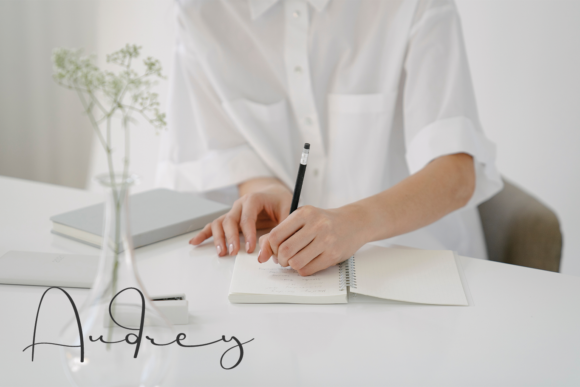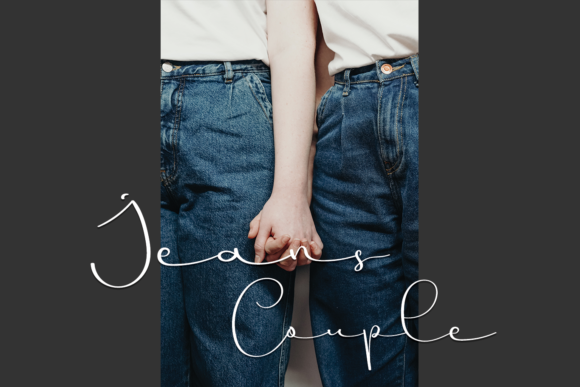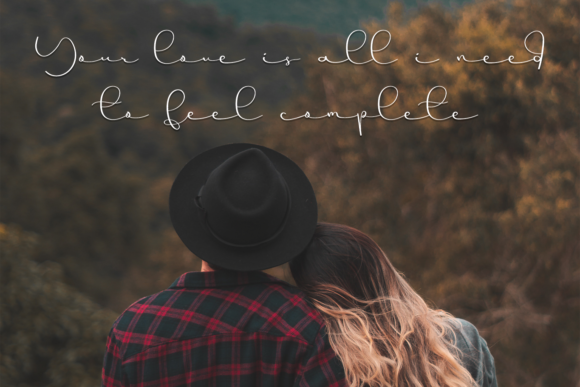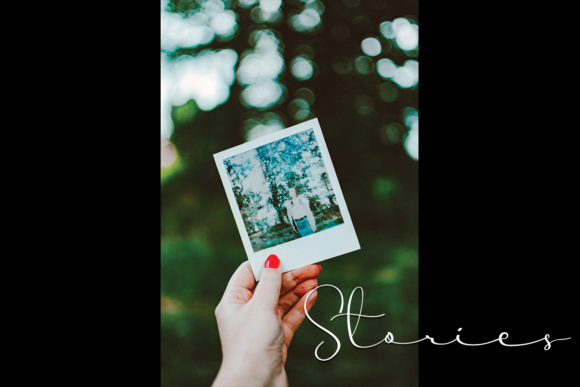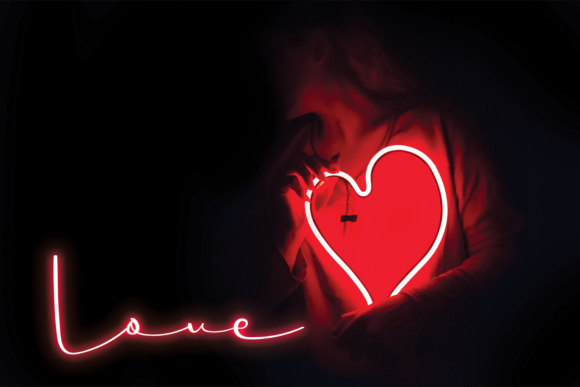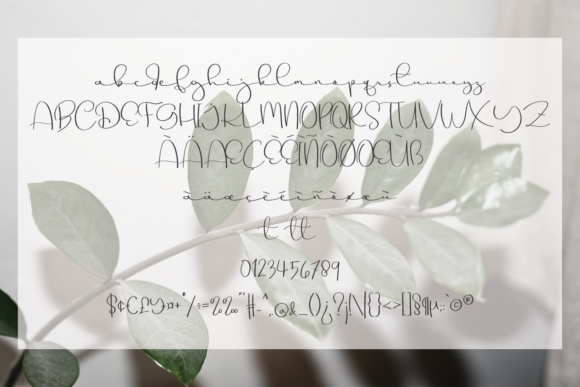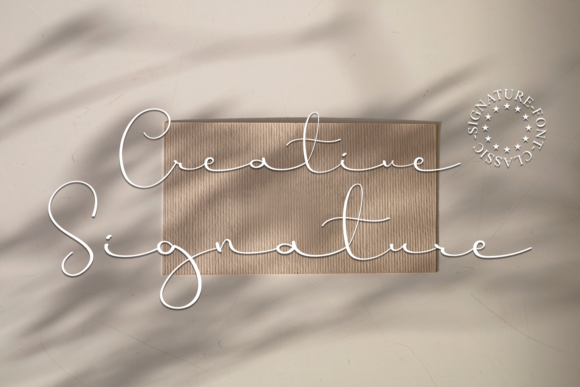
Introducing Creative Signature: The Elegant Script Font for Your Designs
Are you a designer or crafter looking for a font that exudes elegance and class? Look no further than Creative Signature, a lovely and delicate script font that’s perfect for adding a touch of sophistication to your designs. In this article, we’ll take a closer look at Creative Signature, its features, and how you can use it to elevate your designs.
What is Creative Signature?
Creative Signature is a beautiful script font that’s been carefully crafted to provide a refreshing and elegant look to your designs. Its delicate strokes and flowing curves make it perfect for a variety of design projects, from wedding invitations and greeting cards to branding and packaging.
Key Features of Creative Signature
- Elegant and Delicate: Creative Signature features delicate strokes and flowing curves that give it an elegant and refined look.
- Script Font: This font is a script font, perfect for adding a touch of sophistication and class to your designs.
- Refreshing Look: Creative Signature has a refreshing look that’s perfect for designers and crafters who want to add a unique touch to their designs.
How to Use Creative Signature in Your Designs
Creative Signature is a versatile font that can be used in a variety of design projects. Here are a few ideas to get you started:
- Wedding Invitations: Use Creative Signature to create beautiful and elegant wedding invitations that set the tone for the big day.
- Greeting Cards: Add a touch of elegance to your greeting cards with Creative Signature, perfect for special occasions like birthdays and anniversaries.
- Branding and Packaging: Use Creative Signature to create a unique and sophisticated brand identity for your business.
- Stationery: Add a touch of elegance to your stationery with Creative Signature, perfect for letters, notes, and other written correspondence.
Benefits of Using Creative Signature
There are many benefits to using Creative Signature in your designs. Here are a few:
- Unique Look: Creative Signature provides a unique and refreshing look that’s sure to set your designs apart.
- Elegant and Sophisticated: This font exudes elegance and sophistication, making it perfect for designers and crafters who want to add a touch of class to their designs.
- Easy to Read: Creative Signature is easy to read, making it perfect for body text and other written content.
- Versatile: This font is versatile and can be used in a variety of design projects.
Tips for Using Creative Signature Effectively
Here are a few tips for using Creative Signature effectively in your designs:
- Use it Sparingly: Use Creative Signature sparingly to add a touch of elegance and sophistication to your designs.
- Pair it with Other Fonts: Pair Creative Signature with other fonts to create a unique and interesting look.
- Pay Attention to Kerning: Pay attention to kerning to ensure that your text looks professional and polished.
Creative Signature is a beautiful and elegant script font that’s perfect for designers and crafters who want to add a touch of sophistication to their designs. With its delicate strokes and flowing curves, this font is sure to provide a refreshing and elegant look to your designs. Whether you’re creating wedding invitations, greeting cards, or branding and packaging, Creative Signature is a versatile font that’s sure to meet your needs.